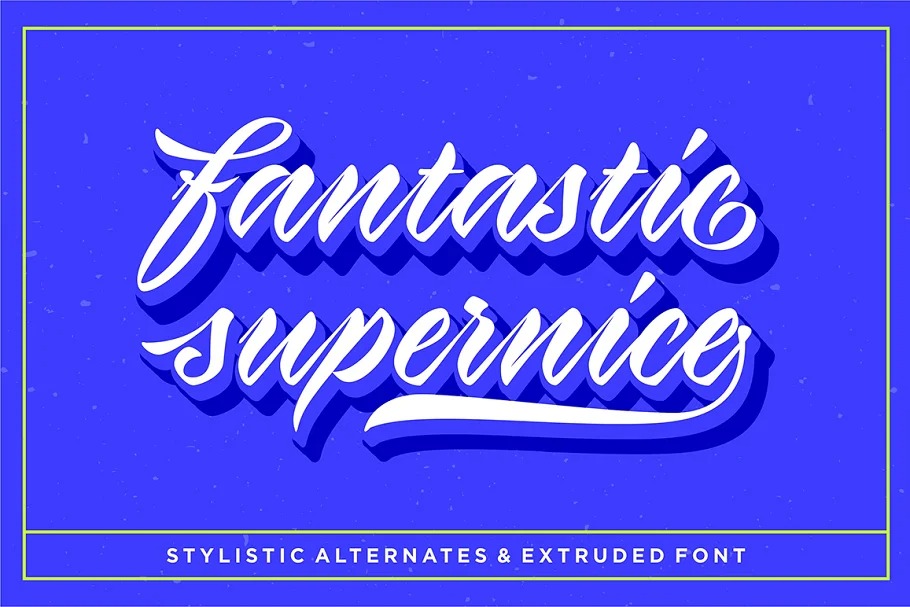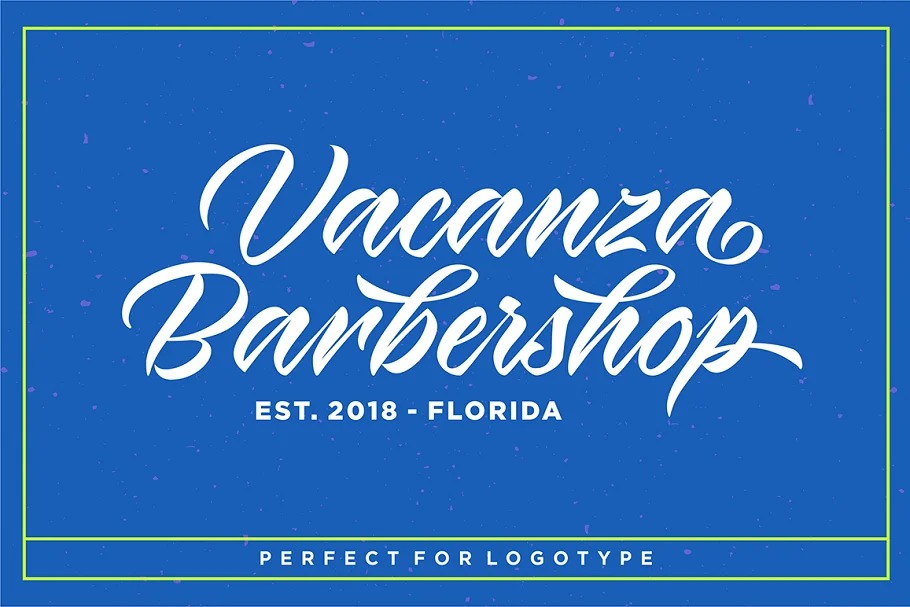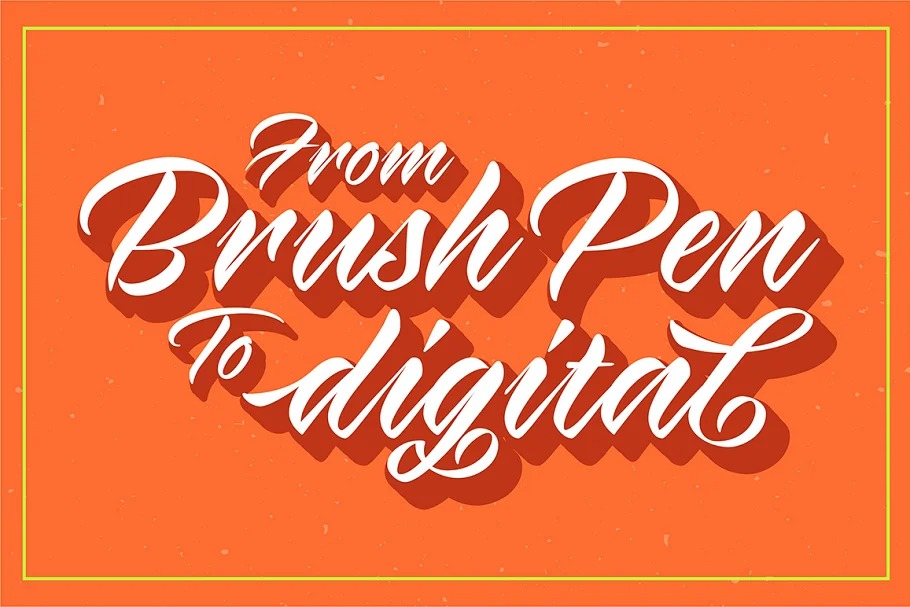
Virmana Script Font is a retro bold script which will bring you back to 70s feel. This font has a poppy, bold appeal and comes with three styles so you can layer for an incredibly stylish look to your projects. Features Open type feature, stylistic alternates, ligatures and International support for most Western Languages. You need a program that supports OpenType features such as Adobe Illustrator CS, Adobe Photoshop CC, Adobe Indesign.